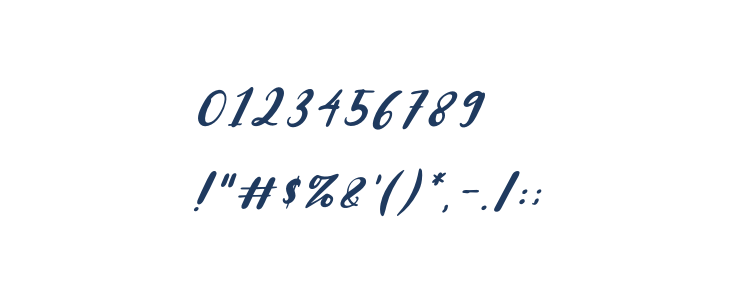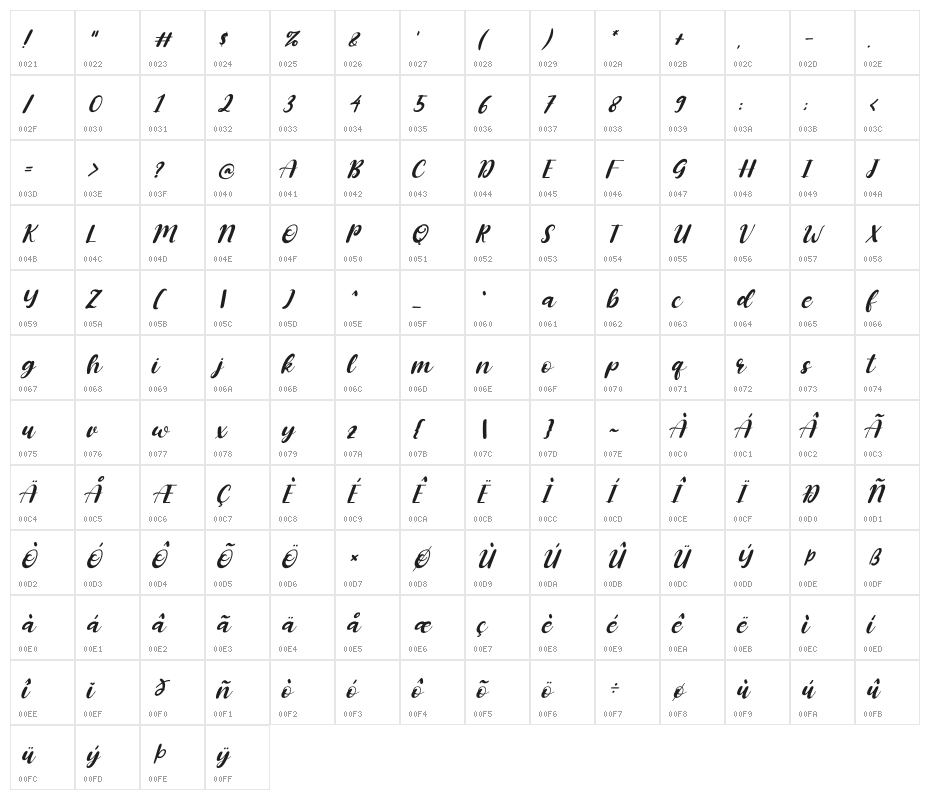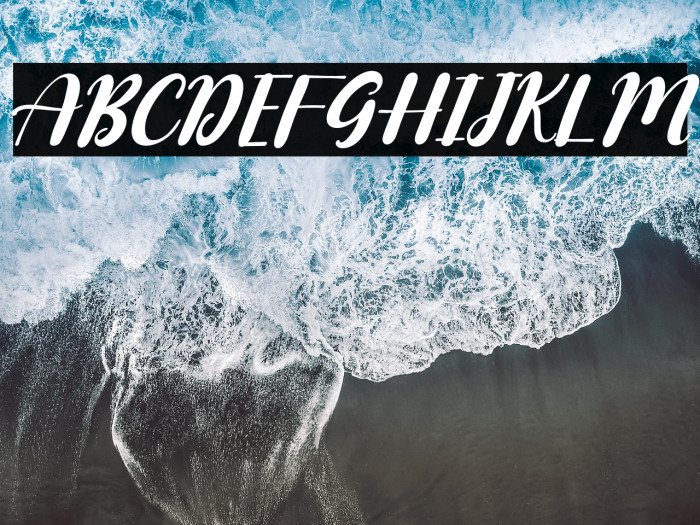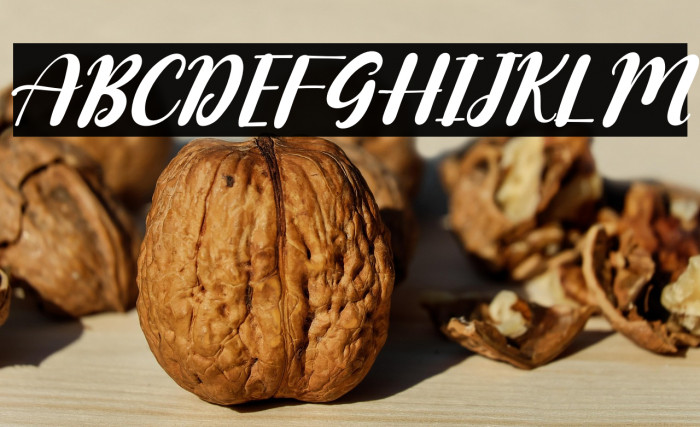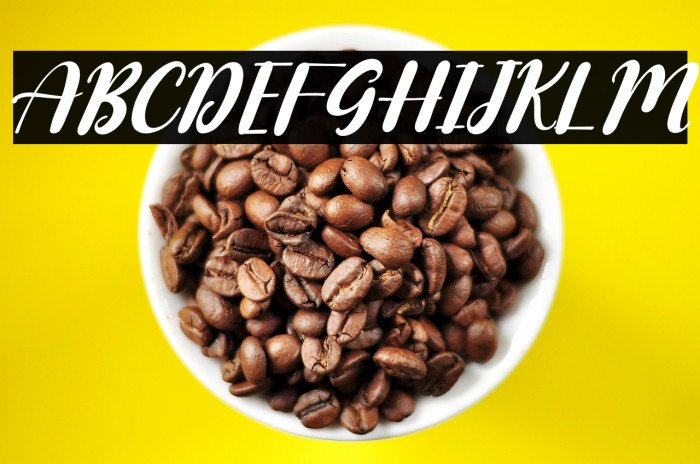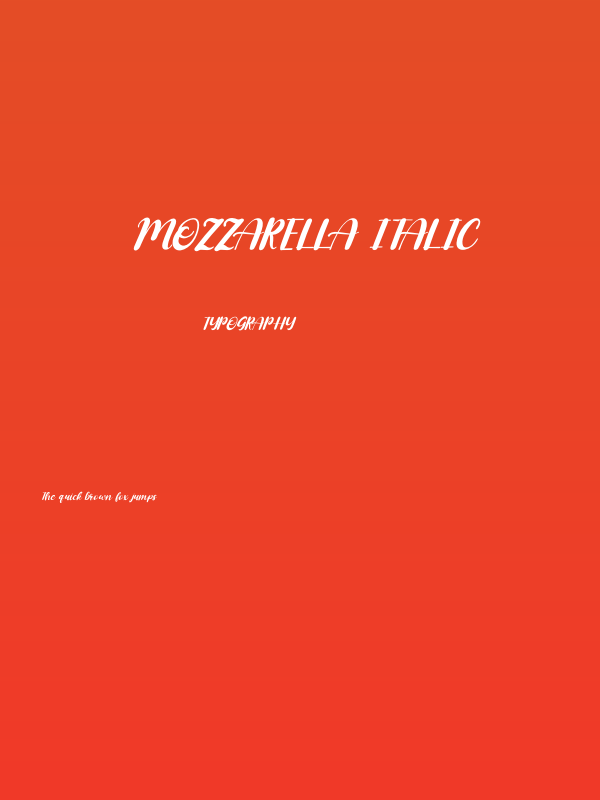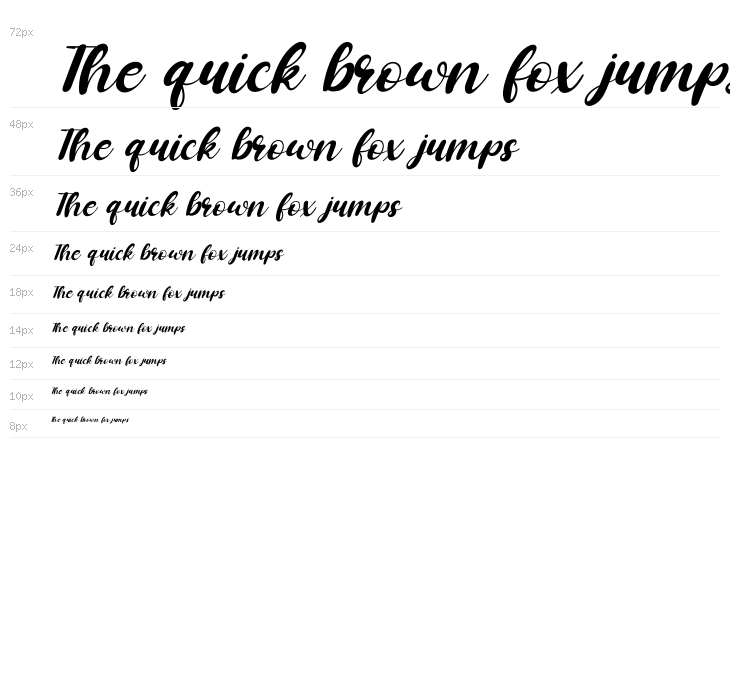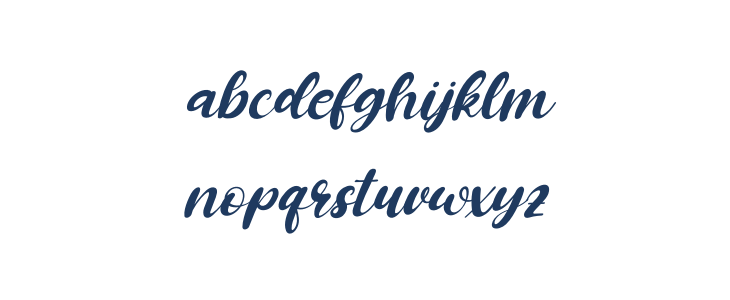
Mozzarella Italic Font
Mozzarella Italic Description
This font features a flowing, cursive style with a distinct italic slant, giving it a dynamic and elegant appearance. The characters are connected in a smooth, continuous manner, reminiscent of traditional calligraphy. The uppercase letters are bold and prominent, while the lowercase letters maintain a consistent flow, enhancing readability. The numerals and special characters are designed to match the script's overall aesthetic, ensuring a cohesive look across all text elements. The font's design is both sophisticated and approachable, making it suitable for a variety of creative applications.